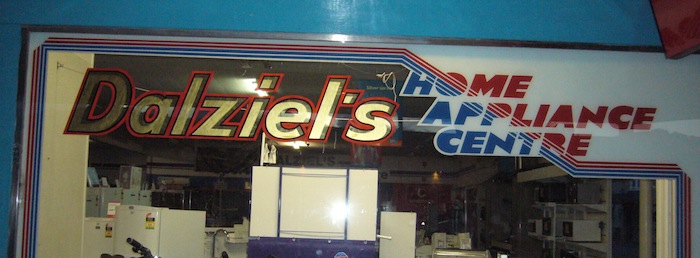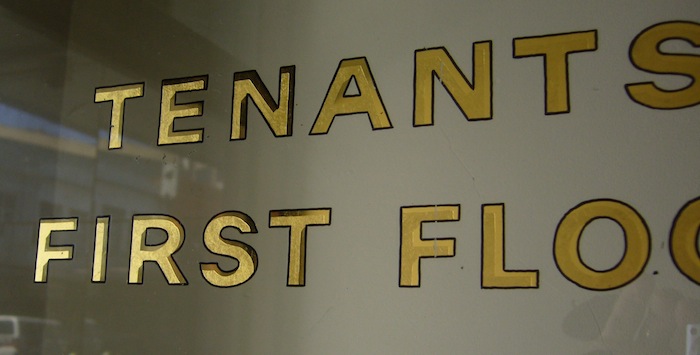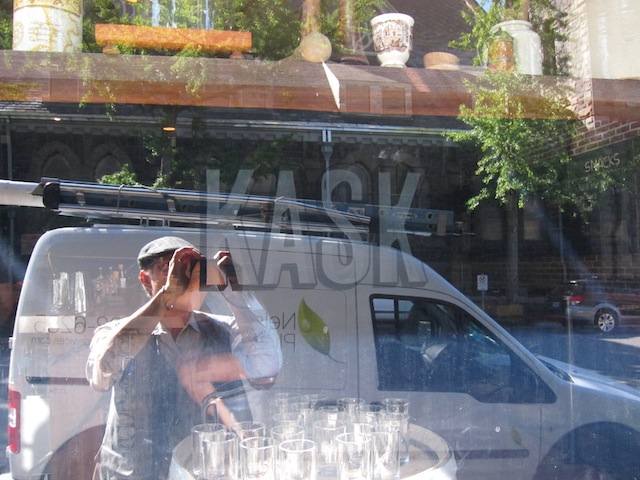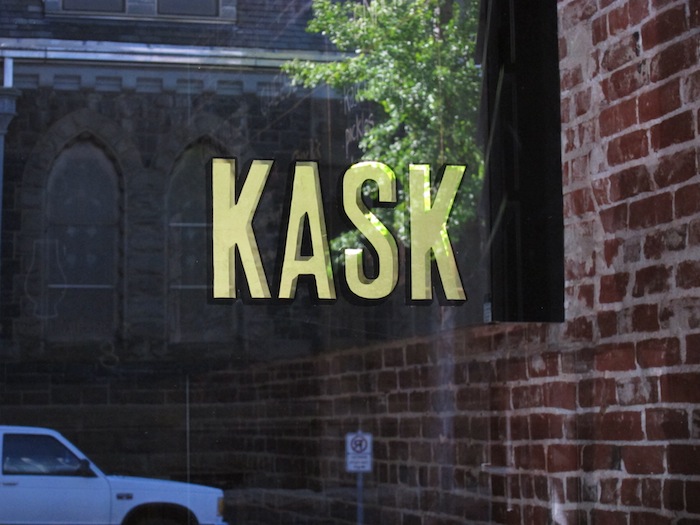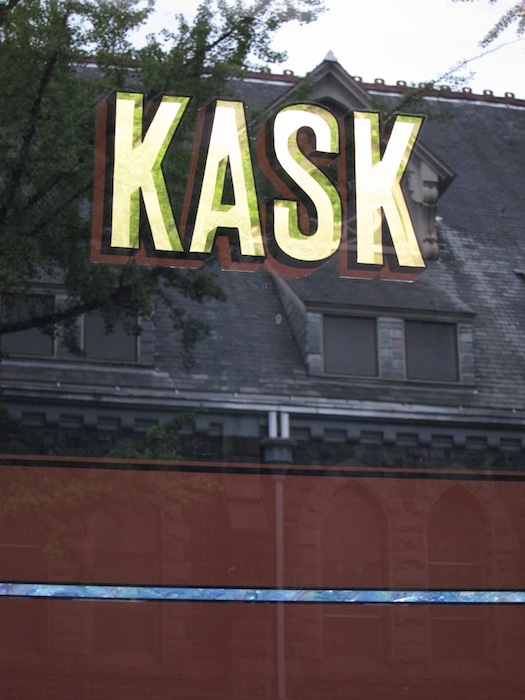
Boxed, Cut & Gilded
Here is a form of "internal shade" that I saw in New Zealand. The first one (Dalziel's) was in a small, older village and I just hopped all over it. But later in Aukland (the capitol) I found it on a simple entry door (Tenants letters are about 1.25") - nicely done but loose, like a usual technique. I was only in Aukland for 2 days, and I'll bet that there was more of it to be found here & there around town. Dave Smith calls it a "box cut" and says it is a normal technique in England. Lucky guys.
So last fall I got a job where I could try it out. A hipster bar, only about 15' wide by 25' deep, but full of house-made flavor extracts and drinking vinegars and such (just trying to set the scene here), and they said, "think leather & mahogany & whiskey". And they had this nice logo, based on wood type. Seemed like it was just asking to be a box cut.
First picture is the black outline printed on and the centers put in with quicksize, then abraded gently with 0000 steel wool.
Then a kaolin rub and watergild over all, back up inside the outlines with chromagold (dries fast and might hide a pinhole or two), then first shade in black over all (door photo,about 3" letters).
Next day mix a brown to match the "privacy stripe" vinyl and do the splitshade, again over all the back - that gold is covered. After it cures fully (I like to give it a week, especially with this many coats of paint) I can apply the clear Tedlar film that Signgold used to sell - it is very soft so a window washer's squeegee will slide over the edges, very clear so the clear "balloon outline" isn't noticeable, and way durable - and cut the balloon outline with an Exacto knife. At least when it's fresh the excess peels off easily; I don't know what it would be like after a day or two. Does anybody know another supplier?
What you see under the name is a privacy panel so people wouldn't be looking up your skirt when you sat at the window (I did say it was small, didn't I?). The client thought that woodgrain would be too busy, so it is a standard color of vinyl. To keep it from being too boring I cut 1/2" strips of Agoya laminated shell (from Rescue Pearl Co in Rescue, California - no website - 530-676-2770 - she said that Duke of Pearl helped get her started when he went wholesale only), backed them with black vinyl and ran the stripe under the brown vinyl. Window & door aren't too big, I only used 6 sheets of it.
There seem to be a lot of things that can be done in a "Boston Gild" (Leblanc's term for a single gild over varnish that gives a matte/mirror effect in one gild). I don't know about Boston, but Chicago had lots of bevelled gold lettering, big & small, roman & sans & script. And I saw some nice photos from Australia where simple highlights were put in with varnish - super quick and quite striking. And of course the standard varnish centers. It looked to me as if some of the Italian lettering that Dan Seese posted here a year ago was sort of 'sunk center' but shifted left or right, not diagonally like 'box cut'. What else is out there?
Why did you rub the dired size with kaolin after you abraded gently with 0000 steel wool?
Seems like a technique I did not heard of... :?
I think that kaolin is the best thing since sliced bread. I have a pounce bag of it in my kit, and we use it whenever we want to de-grease something.
Here we have dried black paint outlines and dried quicksize centers, and we want to flow watersize in a nice sheet over everything - LeBlanc says to add 2 drops of detergent to your size, and that will help but does not always suffice. Dusting with kaolin powder (actually I kind of rub it over as if it were pounce) and then wiping off with cotton or a damp chamois (it will want to stick to the clear areas, and we want them to be clear) seems to let watersize sheet evenly over everything. I think the kaolin absorbs the tiny bit of grease that rises to the surface of dried paint and allows it to be wiped off, but that is just theory.
One other thing that may be helping is our way of cleaning the glass. We clean glass for a gold job the same as we would for a spray-silver job: first commercial spray cleaner and paper towels, maybe a razor blade if you feel lumps as you wipe off the foam. Then pumice and detergent on a felt block and rub hard over the surface - you are thinking as if grinding down to a fresh layer, and lean into it. Wipe off with fresh paper towel, and do it again with the other side of the felt block. Wipe off with fresh paper towel, and it should be almost chemically clean. A test is to spray clean water and see if it sheets well, then wipe off with another clean paper towel. If plain water will sheet, then watersize will have no trouble.
This may be overkill for a gold job, but it is really pretty easy. The time it really helps is if you want to powder puff aluminum over the back - for opacity, or some of my designer clients don't like black on the inside of their signs but silver/grey is usually okay - and unless the glass is really clean it can be a big hassle to wipe off the excess bronze powder. If you are doing it on the outside (a "snapper special" or "dynamite job") it is usually okay to leave a haze of bronze on the glass and let the rain pull it off; that kind of job is quicker and cheaper.
It is exactly the same what i learned last week when removing the oily toplayer while woodgraining.
They decreased with chalkpowder. Kaolin is much better.